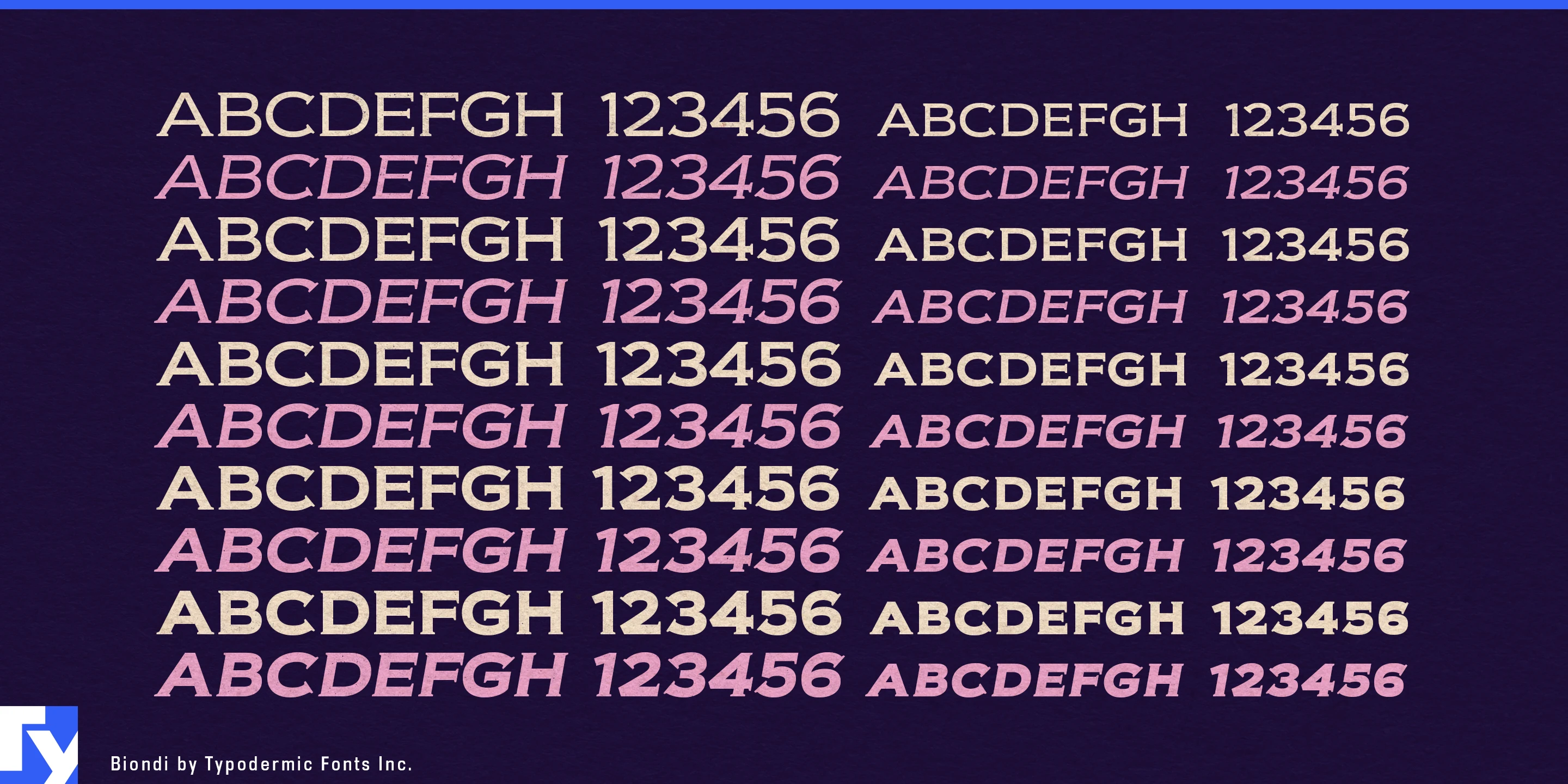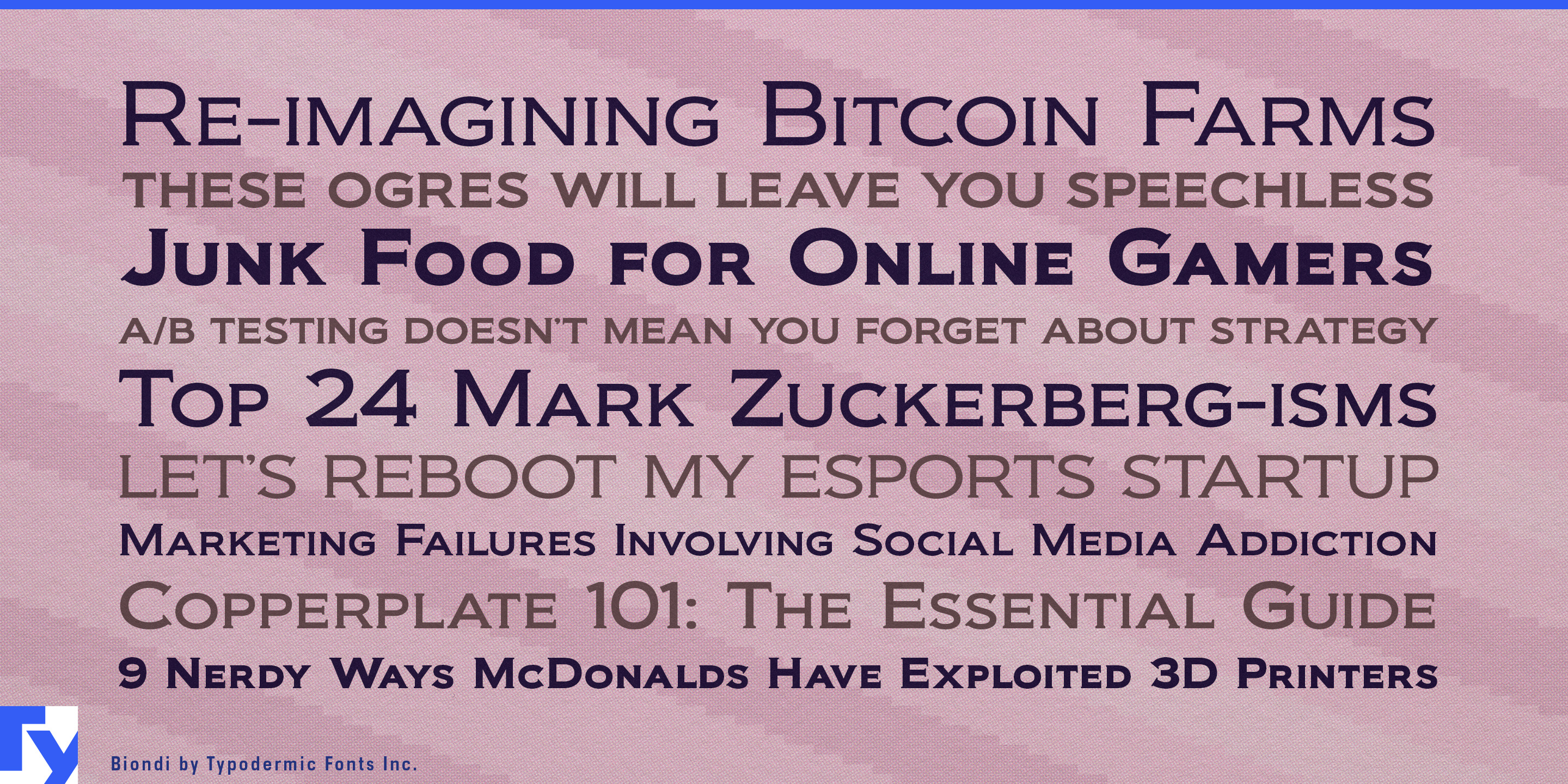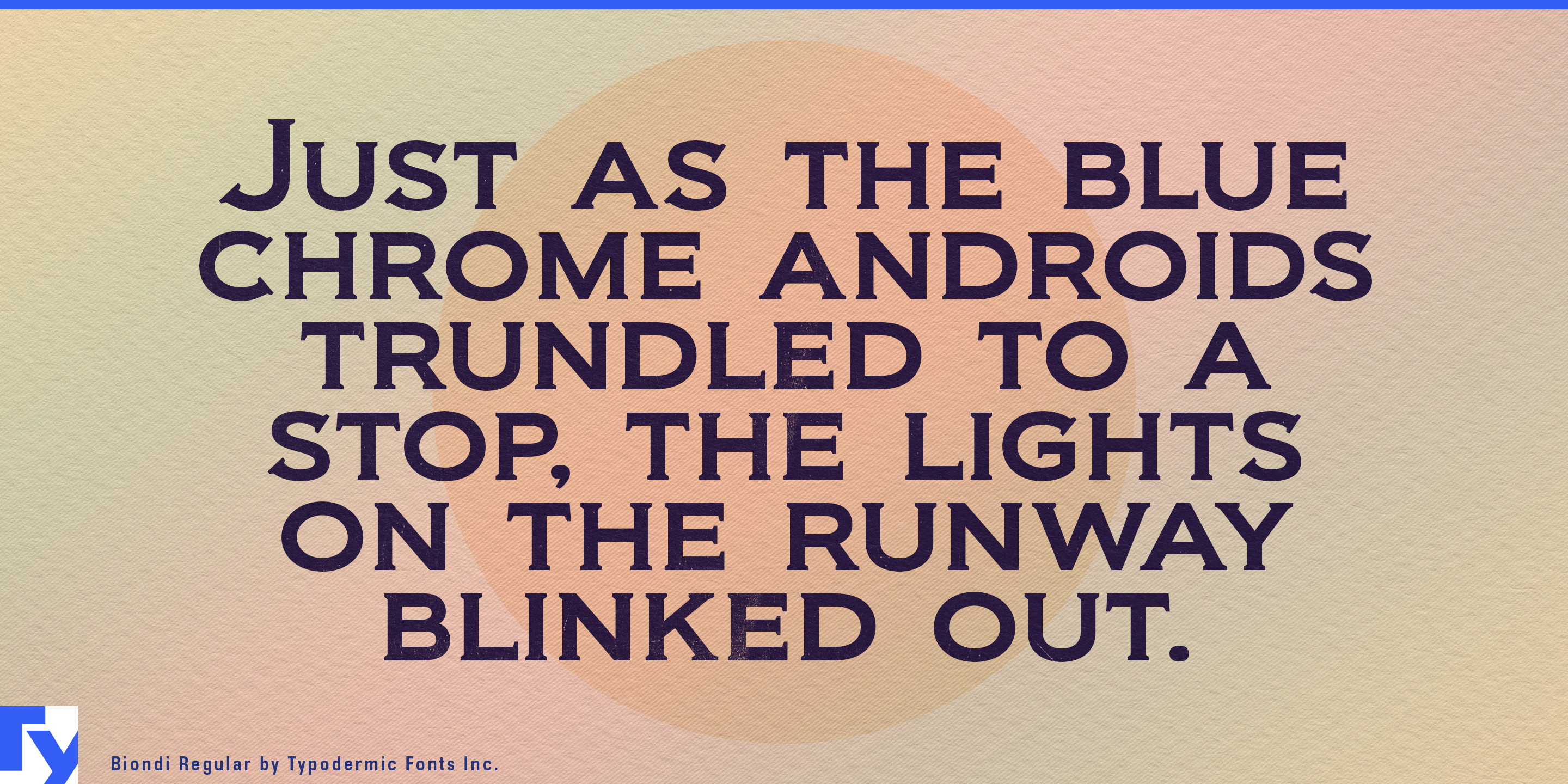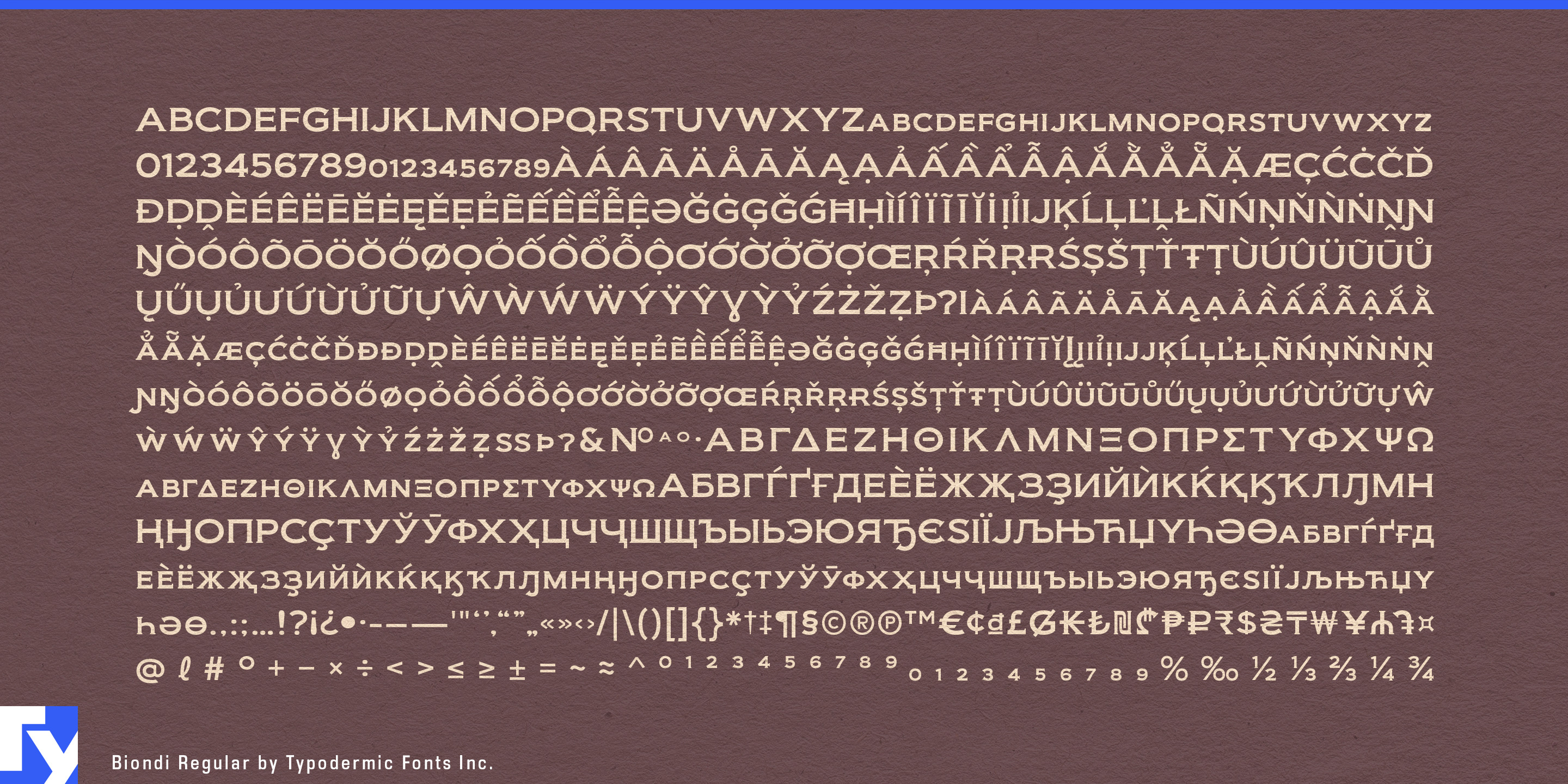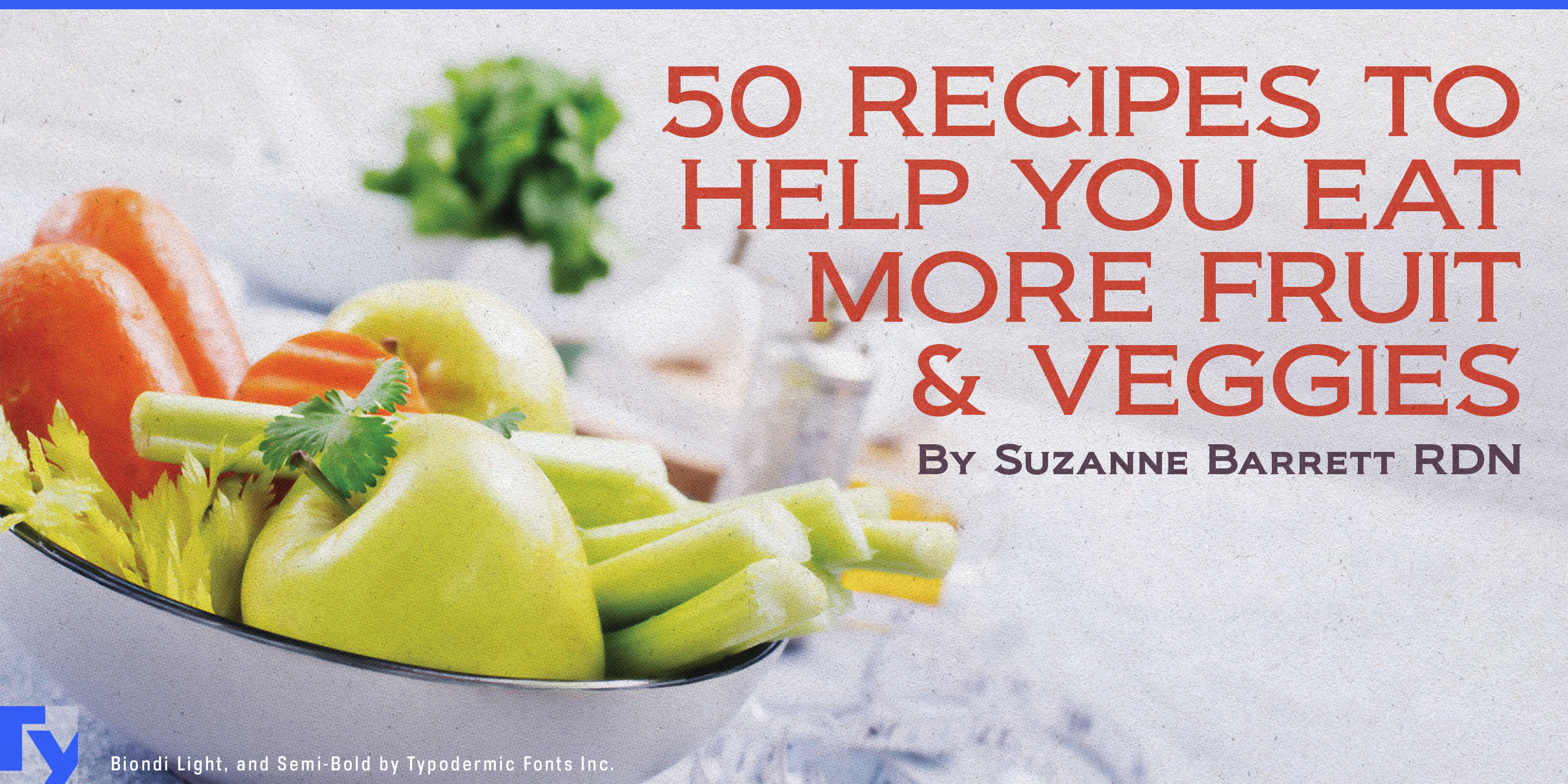
Biondi
Biondi is ceremonial typography built for a world where ceremony happens everywhere at once.
Awards, championships and prestige events now move between trophies, plaques, giant stage screens, animated winner reveals, livestreams, social announcements and digital badges. Traditional engraved faces can look elegant in ideal reproduction but become fragile when their finest details are pushed across that range. Biondi keeps the broad proportions and large-cap/small-cap hierarchy associated with engraved display lettering, but replaces delicate hairline serifs with substantial wedges.
That makes it especially useful for awards and recognition systems. Architecture prizes, design awards, film and television ceremonies, game-industry awards, innovation programs and professional honors all need category names, nominee slates, winner reveals, trophy inscriptions, gala screens, program covers and social graphics to feel like parts of one event. Biondi’s capital structure can organize recipient names, categories, organizations and dates without leaving that ceremonial vocabulary.
Prestige competition presents a similar problem. Tennis championships, golf tournaments, motorsport ceremonies, halls of fame and esports finals need typography that communicates status beyond ordinary team graphics. Biondi can carry championship names, divisions, trophy inscriptions, broadcast cards and commemorative graphics with enough authority for the occasion while remaining substantial on large digital displays.
Strategy and simulation games offer a different setting for the same qualities. Grand strategy, political simulation, civilization building and serious science-fiction games often revolve around federations, ministries, corporations, commands and factions. Biondi can give those invented institutions a sense of permanence in faction names, campaign chapters, achievement tiers, diplomatic events and scenario titles without forcing the interface into historical pastiche.
Museums and cultural exhibitions increasingly spread one identity across architecture, projection, interactive displays, touchscreens and print. Biondi can move from an exhibition title on a wall to a date on a projection or a chapter heading on an interactive display without depending on fragile fine detail. Collector auctions for watches, classic automobiles, rare coins, design objects and major memorabilia offer a related use across sale titles, catalogue covers, preview graphics and livestream presentation.
Biondi began with a practical problem: retaining the formal character of engraved small-cap lettering while making it more reliable on screen. The broad proportions establish status; the wedge serifs give that status enough weight to travel from object to venue to broadcast.